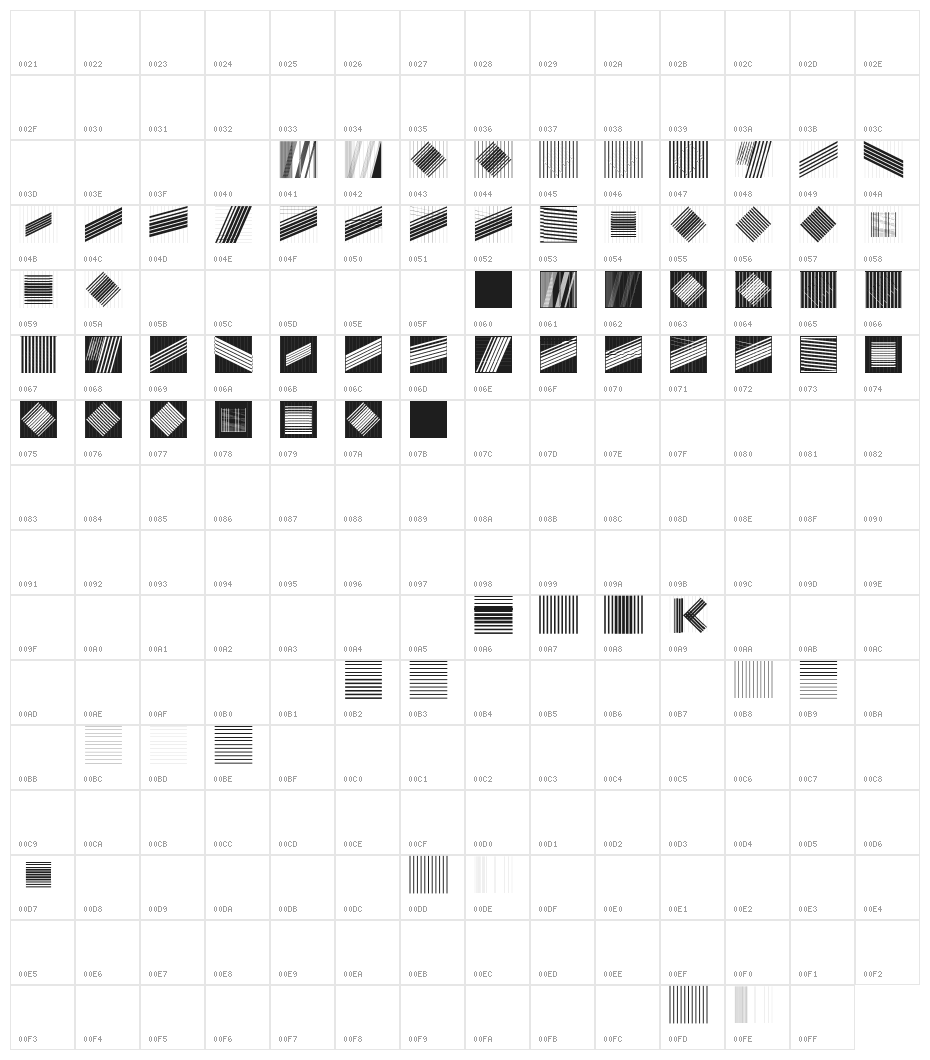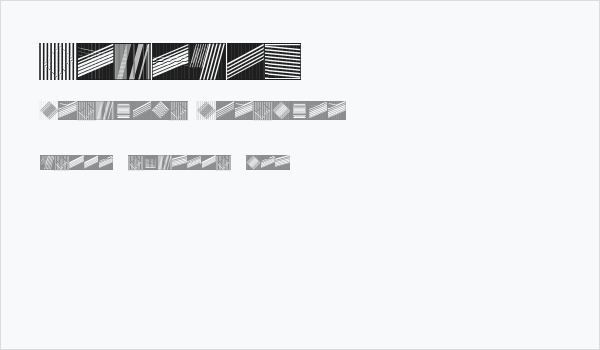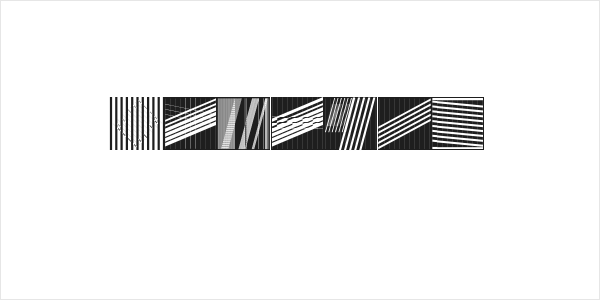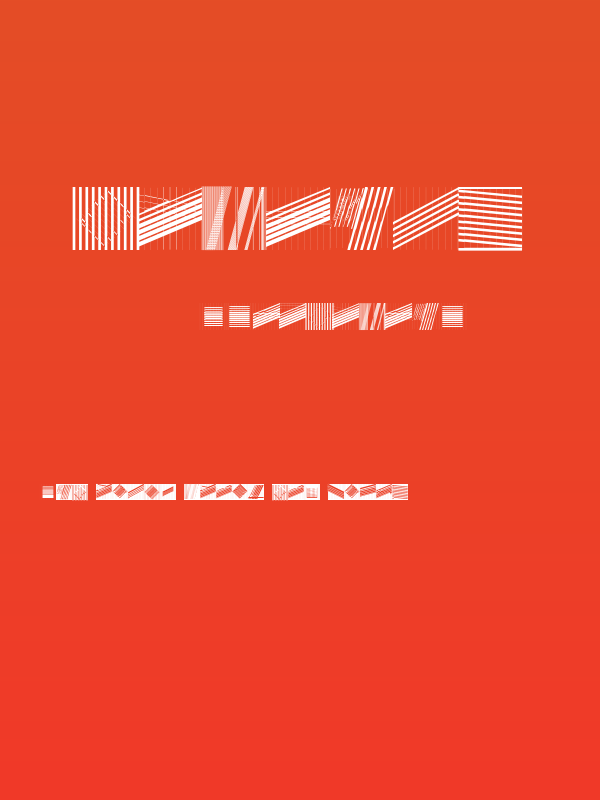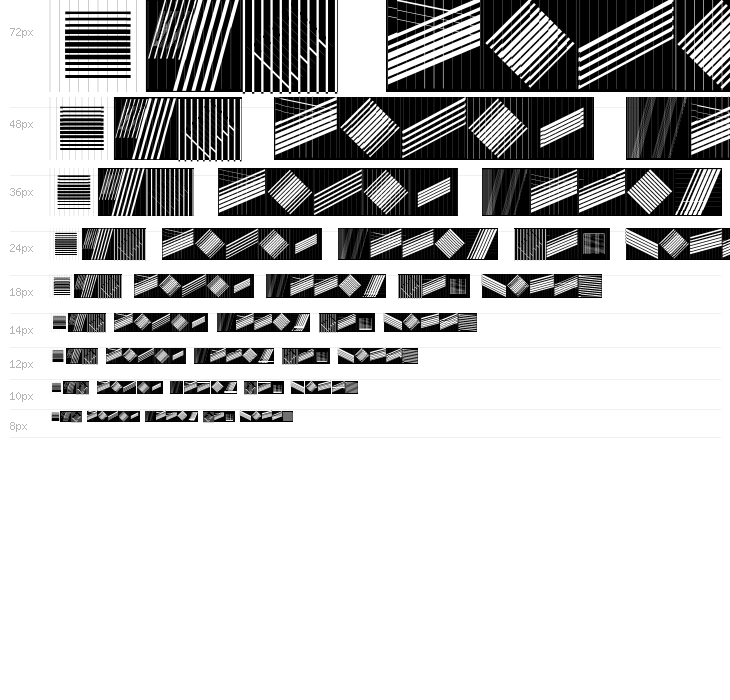
Graphis Font
Graphis Description
This font is a highly decorative and abstract design, characterized by its use of parallel lines and geometric shapes to form each character. The letters and numbers are composed of intricate patterns that create a sense of movement and rhythm. The overall appearance is striking and modern, with a unique aesthetic that stands out. The font's design is not intended for readability in body text but rather for artistic and visual impact. Each character is a work of art, making it suitable for creative projects that require a bold statement.
| Use Case | Logos, Posters, Artistic projects |
| Proposed Projects | Ideal for artistic posters, album covers, modern art installations, and branding that seeks a unique visual identity. |